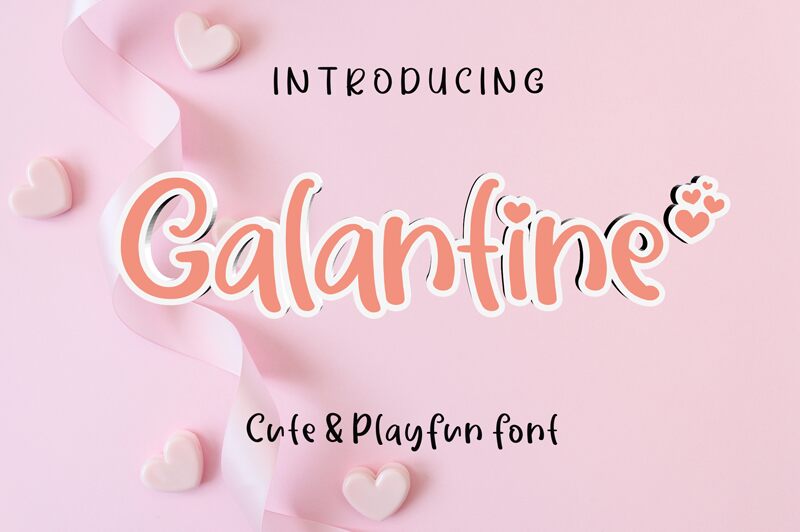
Galantine
Galantine by Erlina Graphic is a charming handwritten font that is perfect for a variety of projects. Its cute and playful style adds a touch of whimsy to any design, making it ideal for children's books, invitations, and greeting cards. The semi-bold font allows for easy readability without sacrificing its delightful personality. Its medium width makes it versatile enough to be used in both large headlines or small body text. If you want to inject some fun into your next project, Galantine is the font for you!